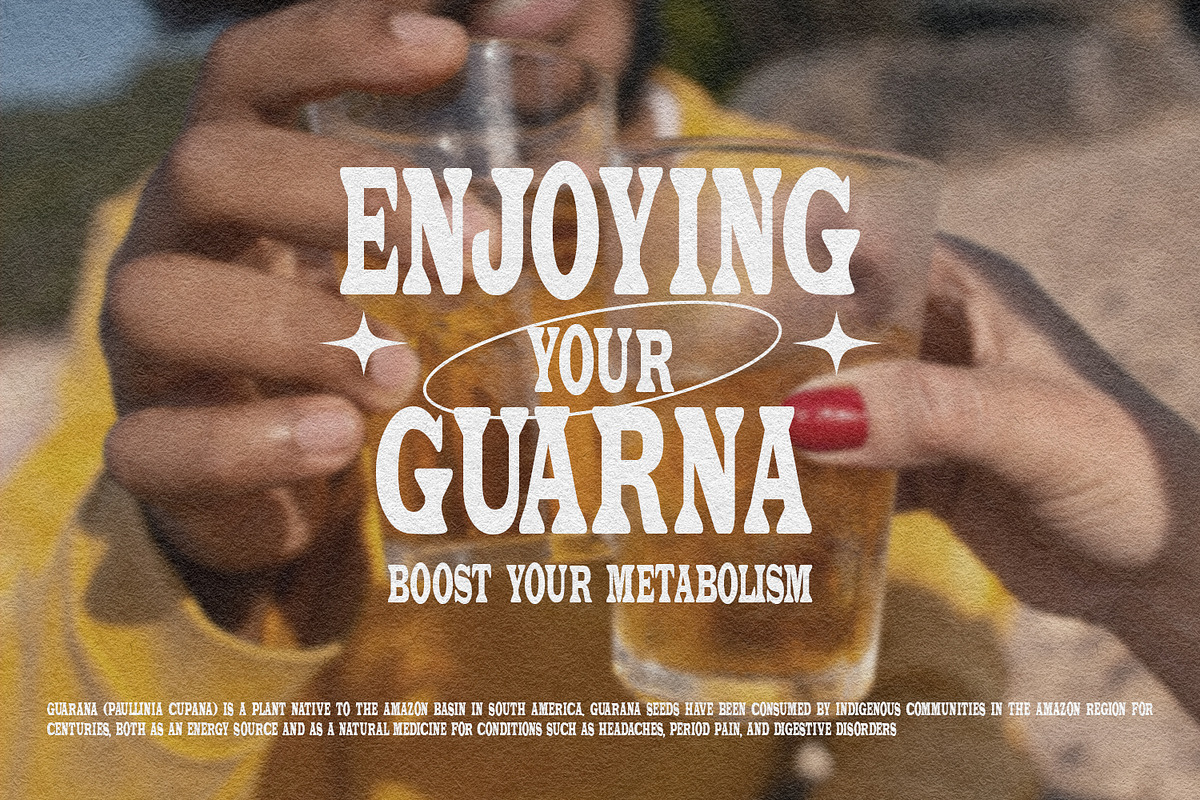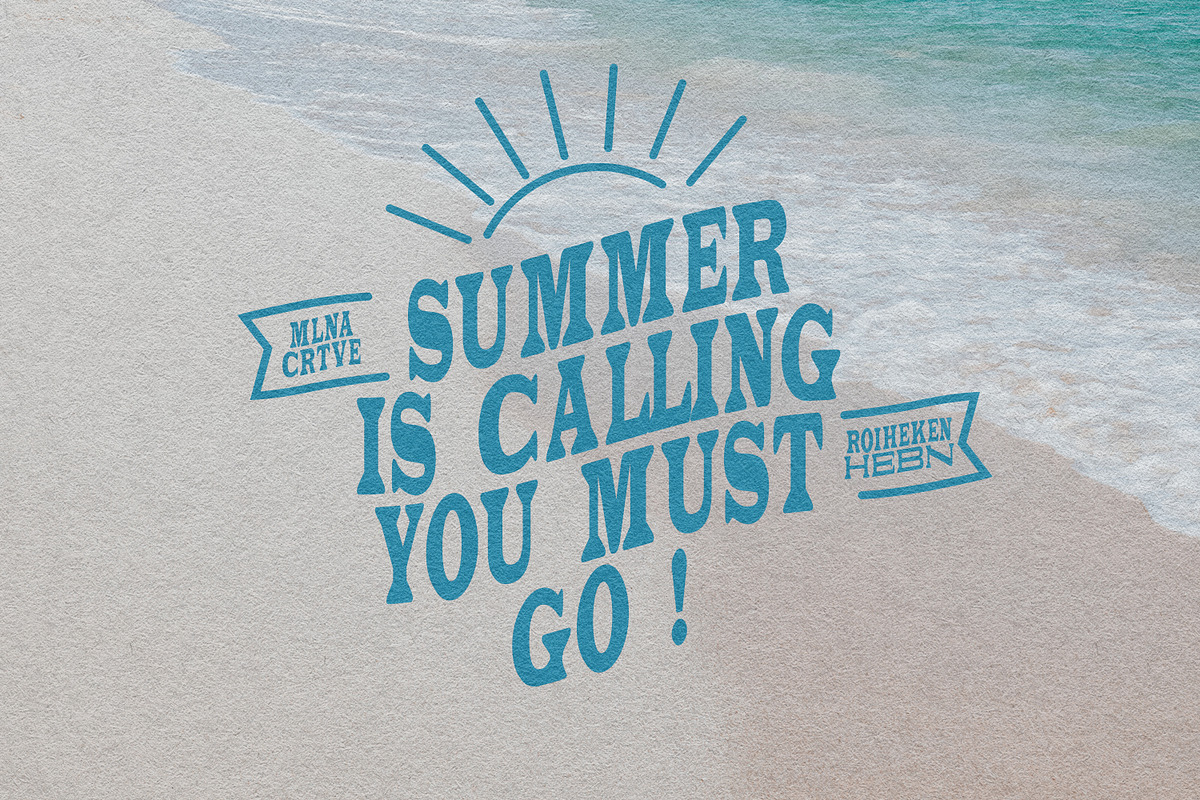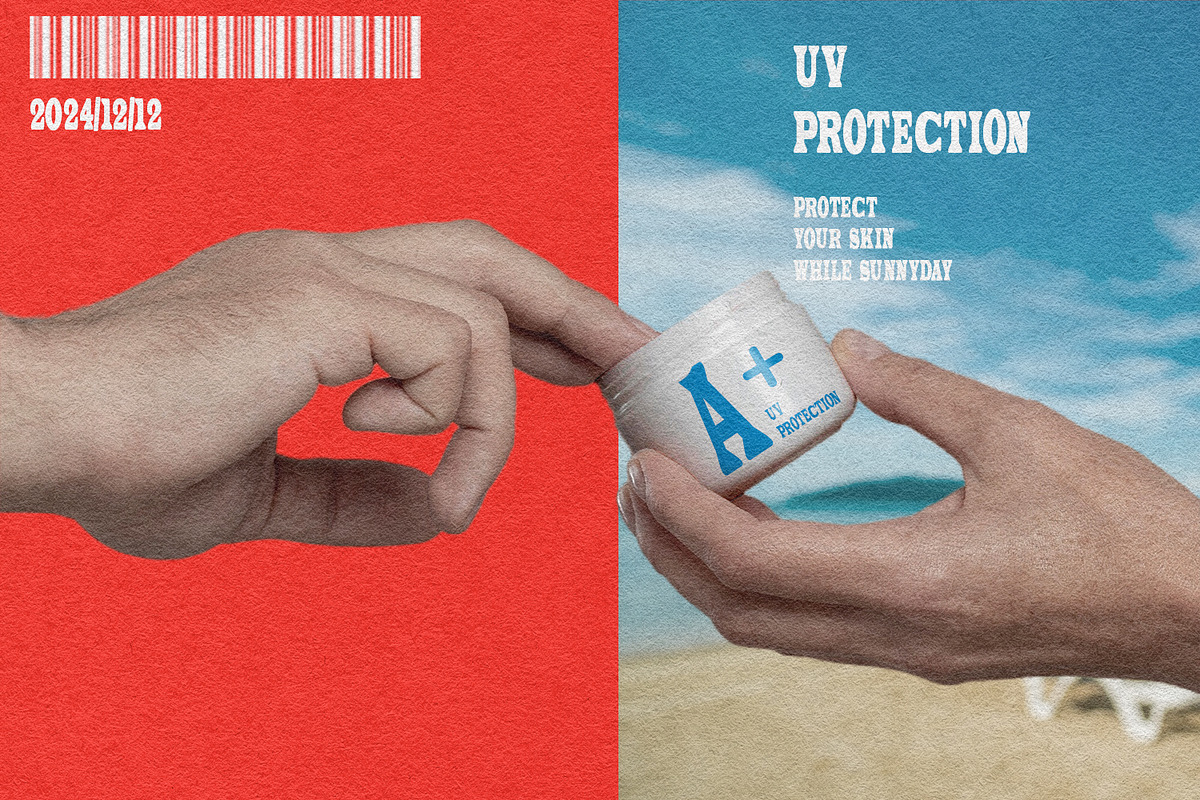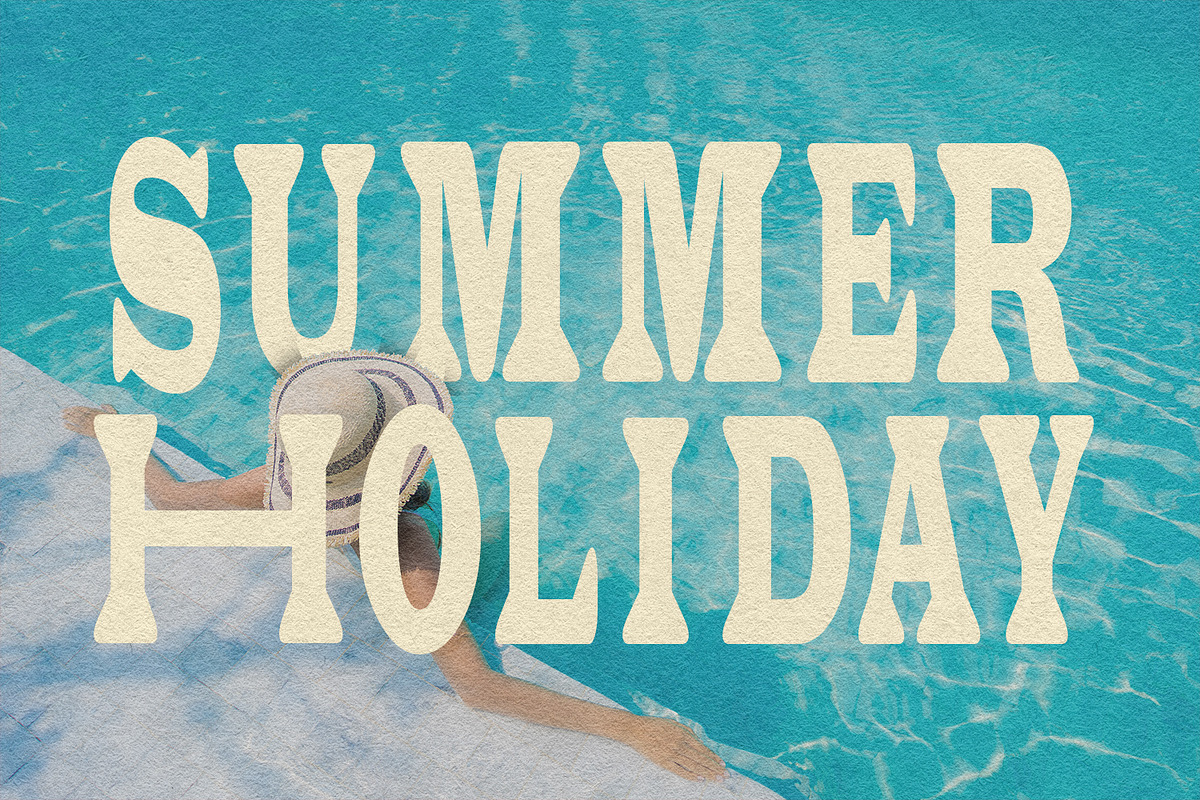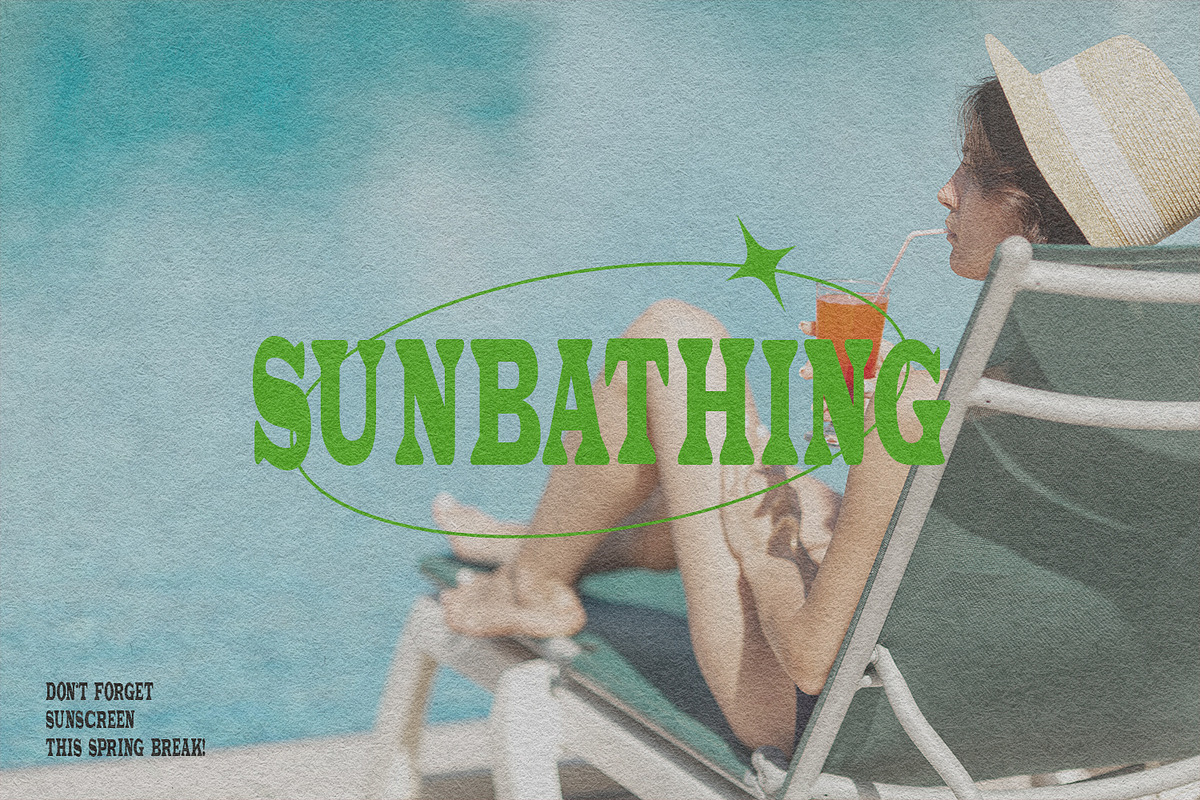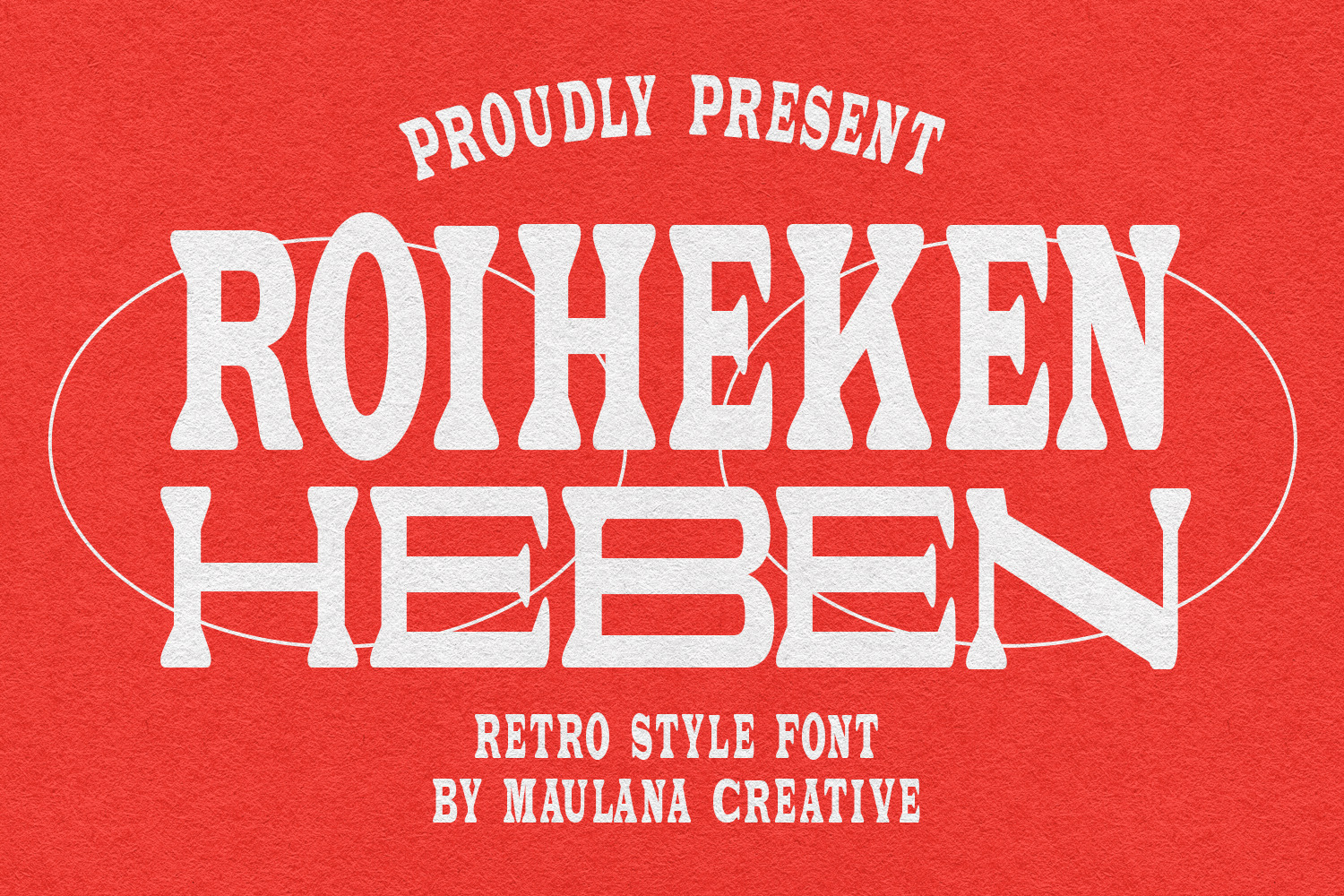
Roiheken Heben Retro Style Font
Roiheken Heben is a retro serif style font. With medium low contrast stroke, vintage character with a ligature and alternate. To give you an extra creative work. Roiheken Heben font support multilingual language. This font is good for logo design, Social media, Movie Titles, Books Titles, a short text even a long text letter and good for your secondary text font with sans or serif. Make a stunning work with Roiheken Heben font.